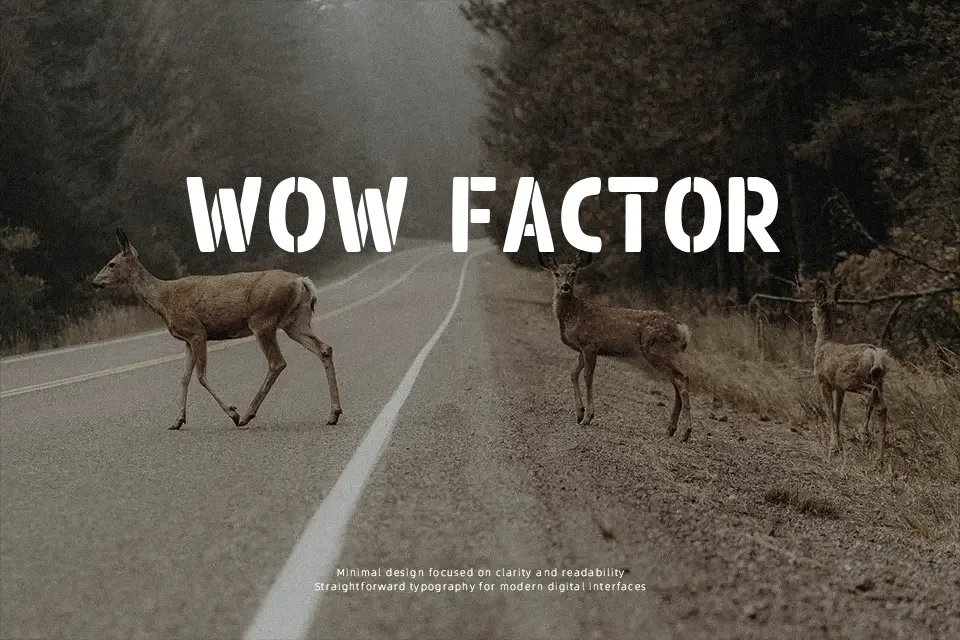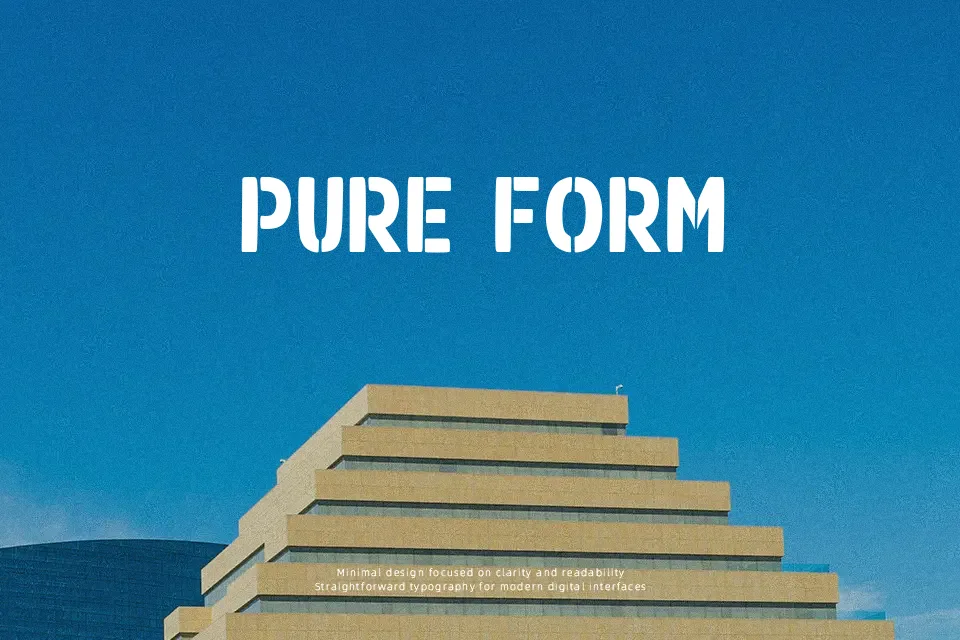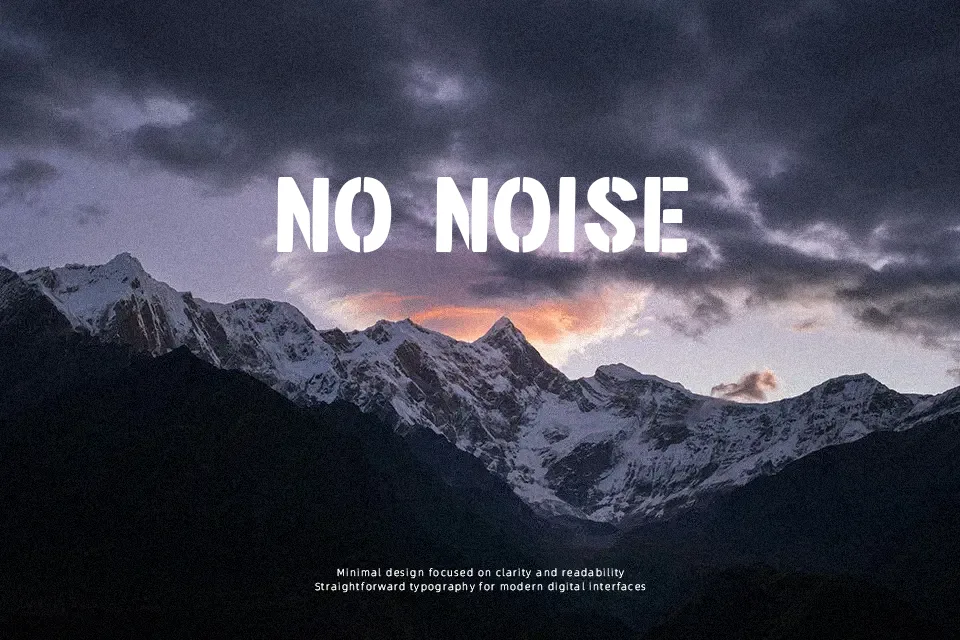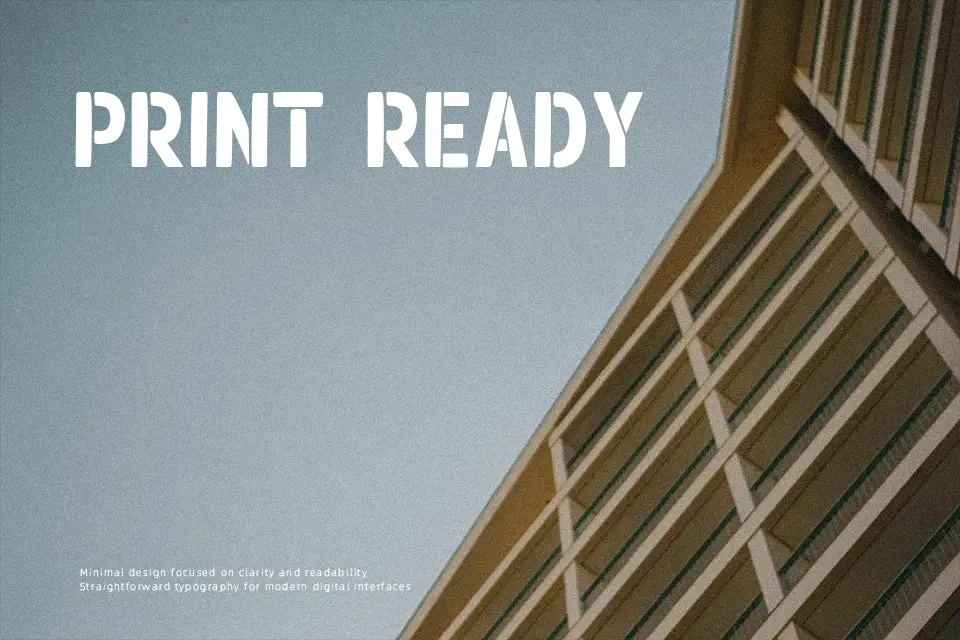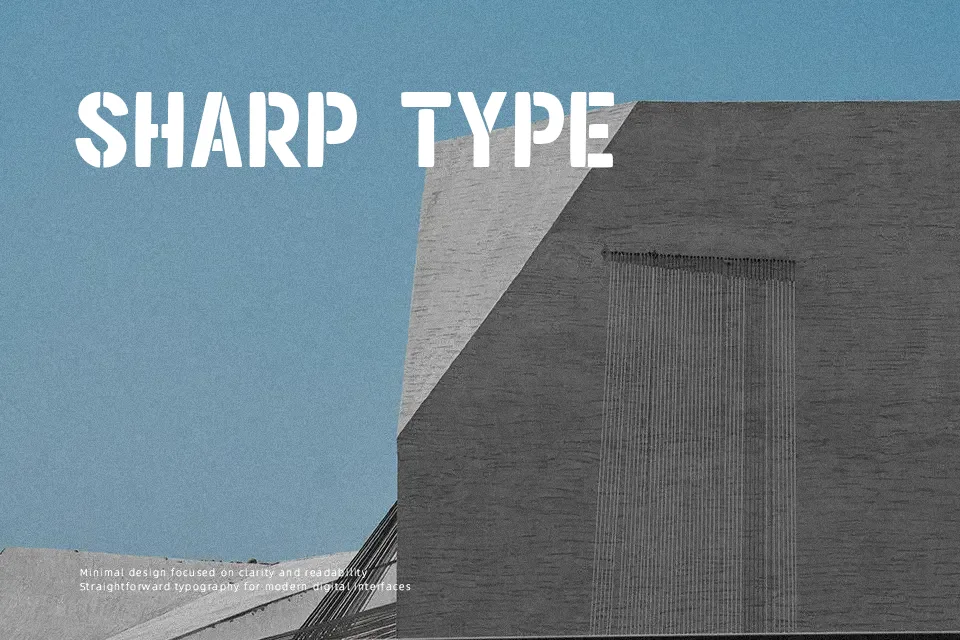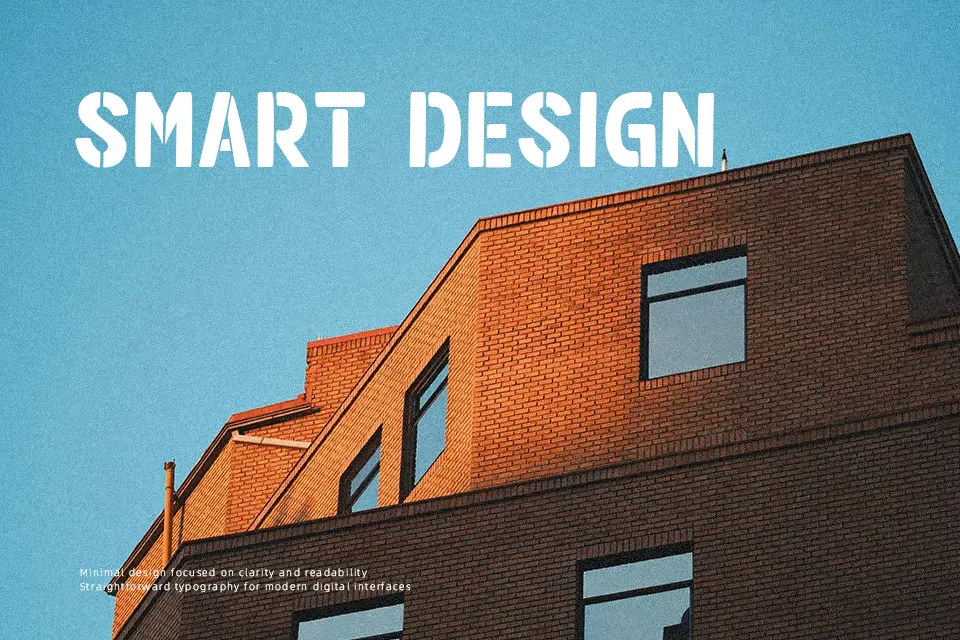
Alberto Stencil Font
There’s a raw, utilitarian quality to Alberto Stencil that makes it read instantly — blocky strokes interrupted by stencil gaps, rounded terminals softening what could otherwise feel too rigid, and a uniform weight that holds strong even at large display sizes. The geometric structure of each character keeps the overall appearance clean rather than chaotic, giving it more usability than a purely decorative novelty. In practice, it works well for military-themed poster headers, streetwear graphics, and event flyers where a bit of edge is expected. That said, the stencil breaks — the gaps that define the style — can fragment readability at small sizes, making it a poor fit for body copy or any context demanding fine typographic detail. One honest caveat: the personal-use restriction limits casual commercial application, which designers on client work should factor in before committing.
– Military or tactical-themed poster headers
– Streetwear and apparel graphic labels
– Sports event signage and team merchandise
– Urban branding and entertainment flyers
– Body text or any copy set below 18pt
– Corporate identity or formal business documents
– Projects requiring clean, uninterrupted letterforms
Perfect for advertising, branding, and logo, with a bold and display style.